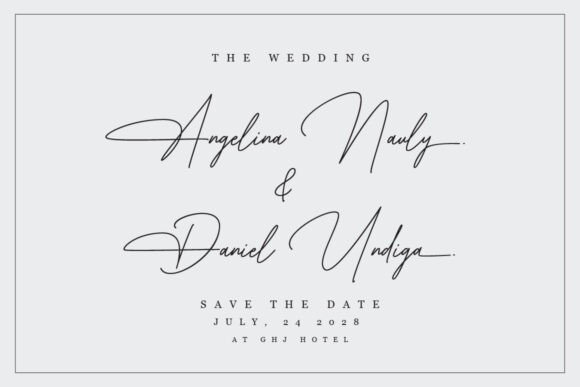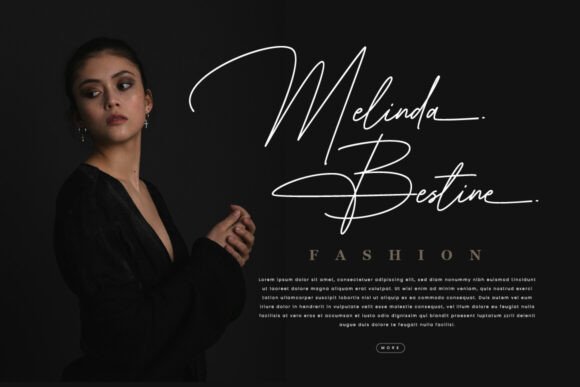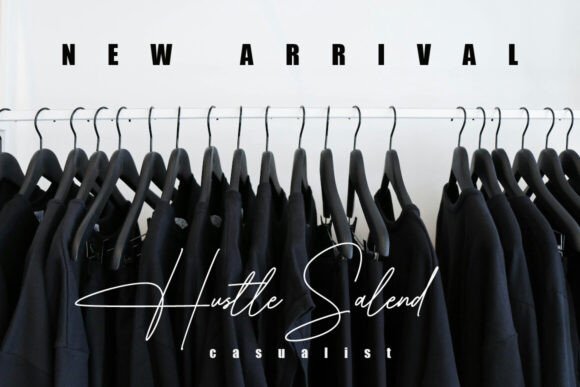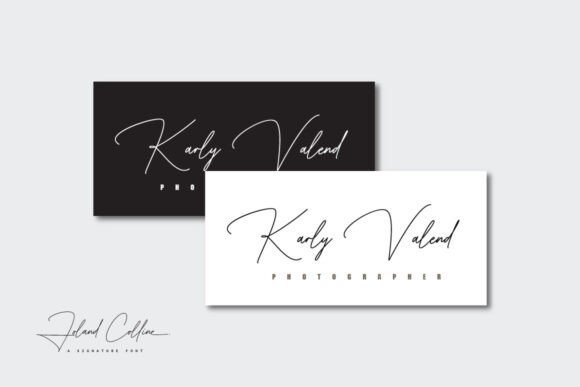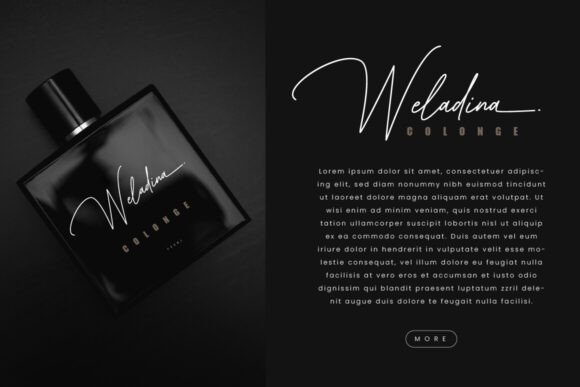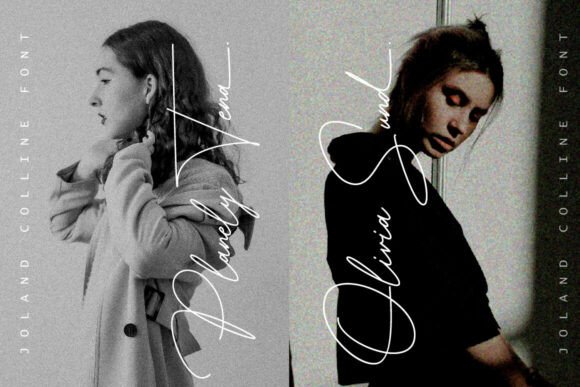
Introduction to Joland Colline Font
Have you ever stared at a blank sheet of paper, pen in hand, trying to bring a creative idea to life? For many designers, this moment is a familiar ritual that sparks imagination and sets the stage for a beautiful project. The right font can make all the difference, transporting your thoughts from mere words to a work of art. Enter the Joland Colline Font, an elegant signature font that embodies the essence of effortless handwriting charm.
With its refined, natural touch and stylish flow, Joland Colline Font is an ideal choice for designers seeking a high-quality design resource that adds a personal touch to their creative projects. Whether you’re working on a free download or a commissioned piece, this font’s ligatures and elegant tails at the end of each lowercase letter create a seamless, authentic look that’s hard to resist.
- Features a unique, elegant design that is both stylish and versatile, making it suitable for a wide range of creative projects.
Honest Review: Joland Colline Font
I recently stumbled upon the Joland Colline Font and I have to say, it’s been a great addition to my design resource library. This font is perfect for any creative project that requires a unique and stylish touch. One of the standout features is the high-quality design, which looks amazing even at larger font sizes.
Here are some things that work well with the Joland Colline Font: ✨
- Its clean and modern design makes it perfect for contemporary projects.
- The font is highly legible, even at smaller sizes.
- The font may not be suitable for projects that require a lot of text overlap, as the transparent background can make it difficult to read.
- The font family is relatively small, so you may need to use other fonts to create a consistent look.
Overall, I’m really impressed with the Joland Colline Font. It’s a great design resource that’s perfect for any creative project. With its high-quality design and free download option, it’s definitely worth checking out.
To get the most out of the Joland Colline Font, experiment with different font sizes, colors, and styles to achieve the desired visual effect. You can also use the font in combination with other design elements, such as images or shapes, to create a unique and engaging design.
The Joland Colline Font is suitable for a wide range of design applications, including:
- Presentation slides and reports
- Logos and icons
- Document templates and worksheets